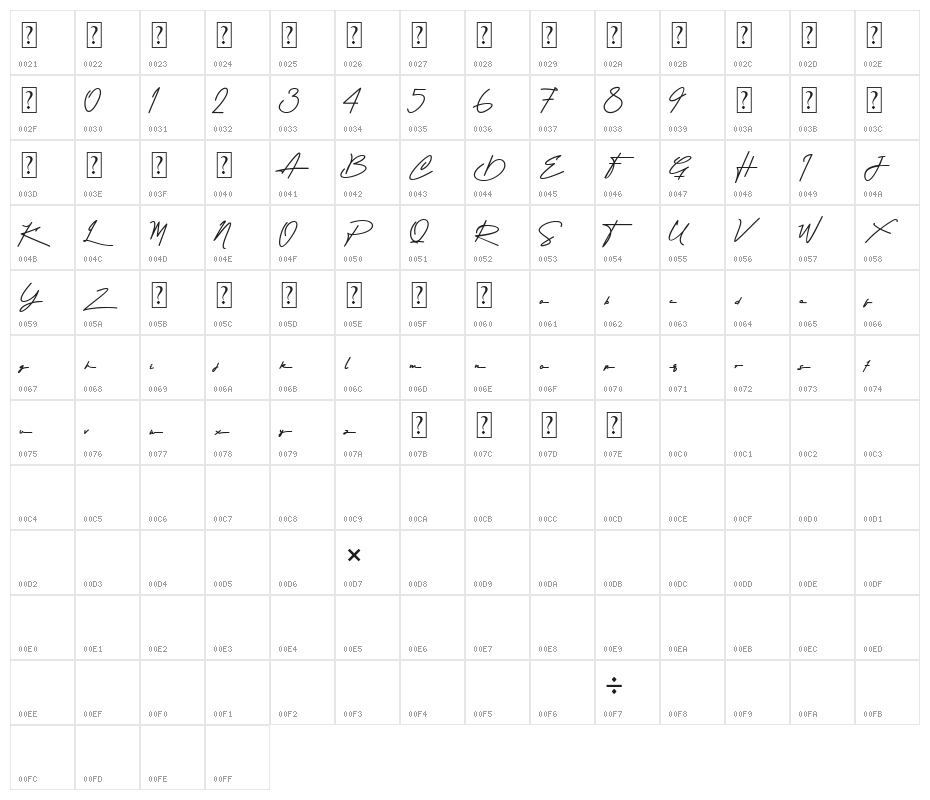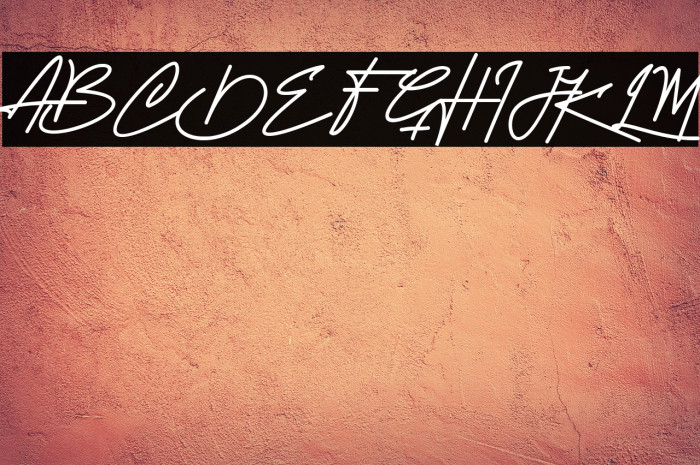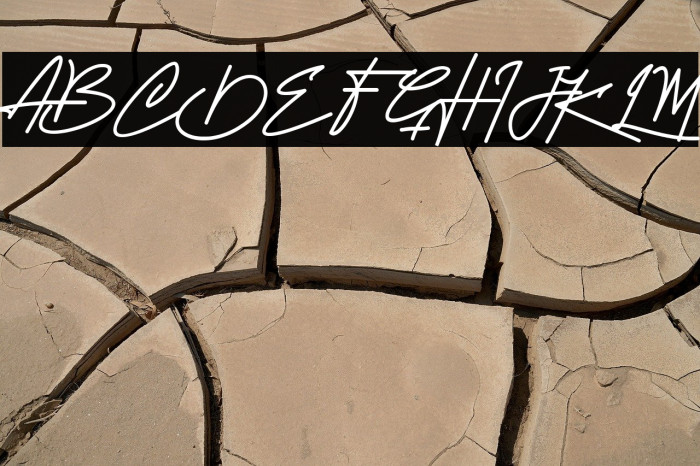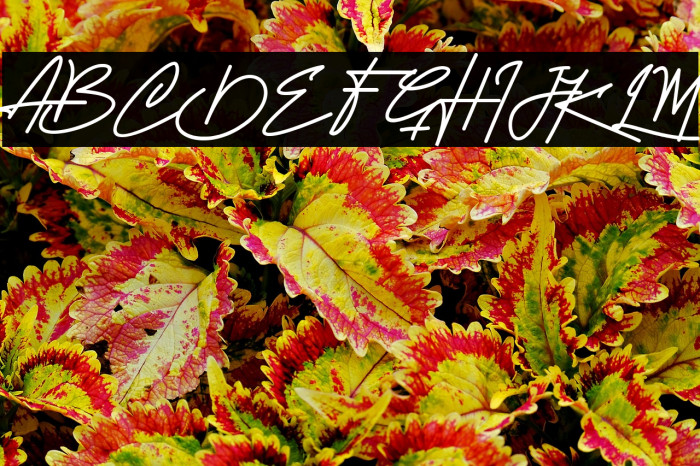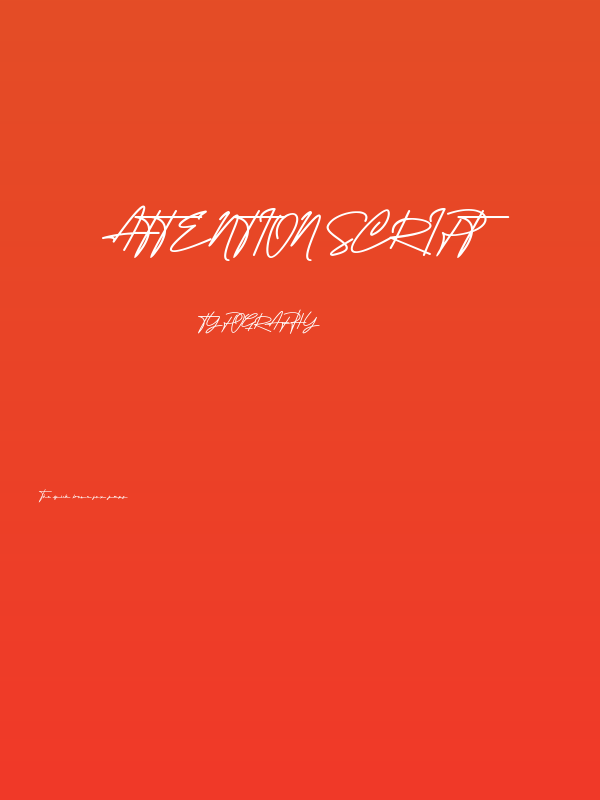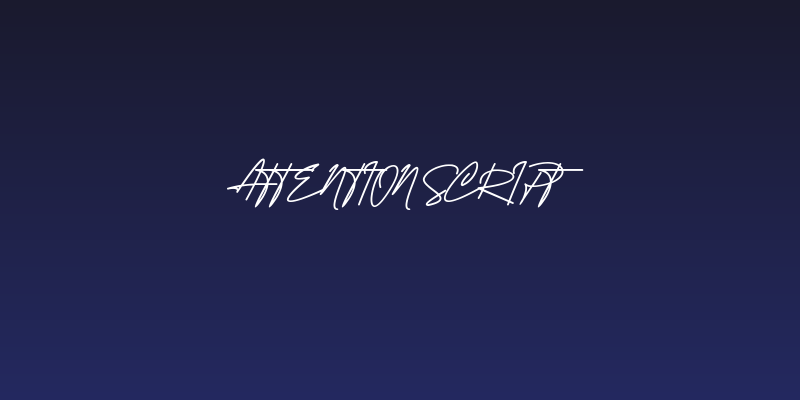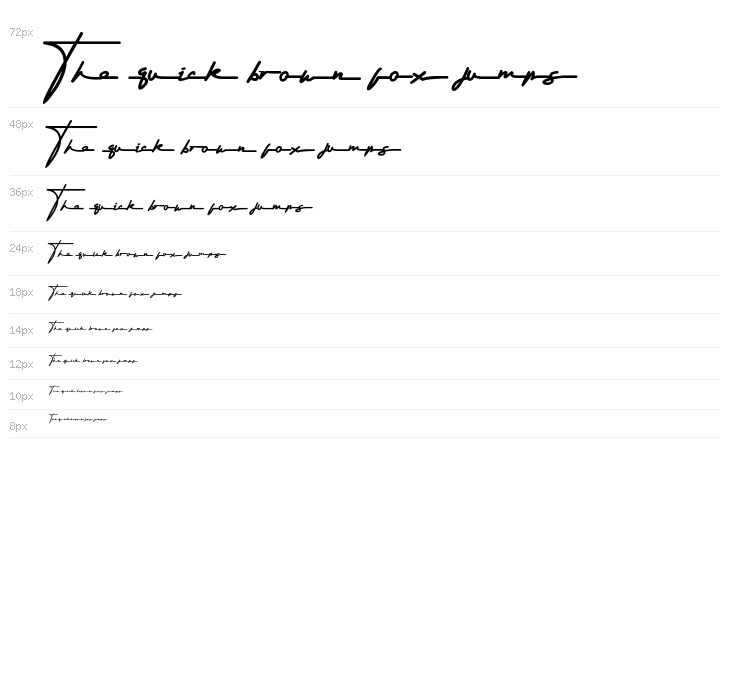
Attention Script Font
Attention Script Description
This font features a dynamic and flowing script style, characterized by its cursive, handwritten appearance. The uppercase letters are bold and expressive, with sweeping lines and elegant curves that give a sense of movement and fluidity. The lowercase letters maintain a consistent flow, connecting smoothly with each other, which enhances the handwritten aesthetic. The numerals are equally stylized, maintaining the script's overall fluidity. This font's unique style is further accentuated by its special characters, which are designed with the same attention to detail and artistic flair. The overall impression is one of elegance and sophistication, making it suitable for projects that require a personal touch.
| Overall Style | Elegant, Artistic |
| Proposed Projects | Ideal for wedding invitations, personal branding, greeting cards, and artistic projects. |